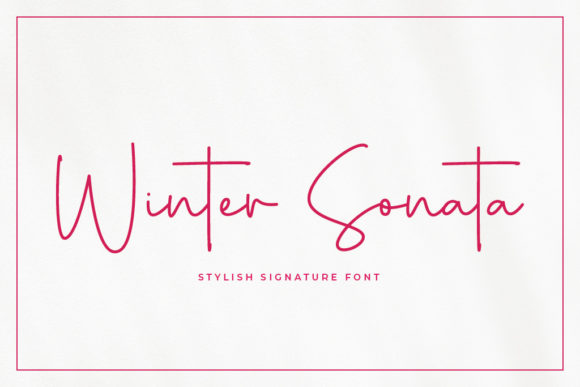
Introducing Winter Sonata Font, the best font for a signature that will elevate your designs to new heights! Created by the talented Cherryline Master, this script font exudes simplicity, modernity, and a hint of elegance, making it the perfect choice for any design project.
Winter Sonata Font is a versatile and eye-catching addition to your font collection. Its ability to seamlessly blend with any design is what sets it apart from the rest. Whether you're creating a branding project for a pastry shop, a jewelry store, a clothing line, a restaurant, or any other business, Winter Sonata Font adds a touch of luxury and minimalism that will captivate your audience.
Not only does Winter Sonata Font offer compatibility, but it also supports multilingual features. This means that no matter where your target audience is located, you can communicate your brand effectively and effortlessly. Break the language barrier and expand your reach with this font's versatility.
The smooth strokes of Winter Sonata Font create a visually pleasing experience for your audience. Each letter flows effortlessly, adding a sense of elegance and sophistication to your designs. Whether you're designing print templates, social media graphics, or website elements, this font will leave a lasting impression on your viewers.
But what truly sets Winter Sonata Font apart is its ability to evoke emotion. Its unique and captivating style speaks directly to the heart, creating a connection with your audience. With Winter Sonata Font, you're not just downloading a font; you're investing in a tool that will help you tell your brand's story in the most compelling way possible.